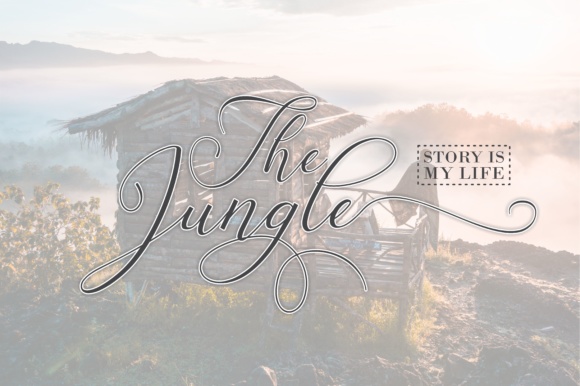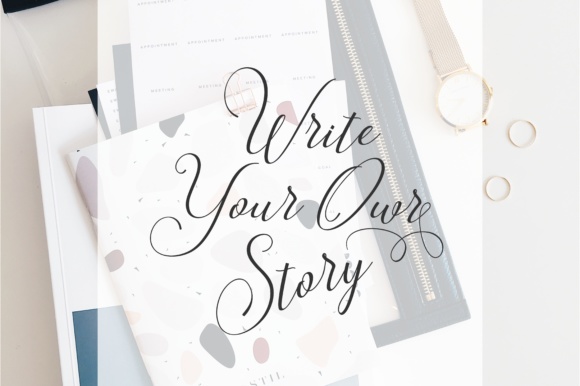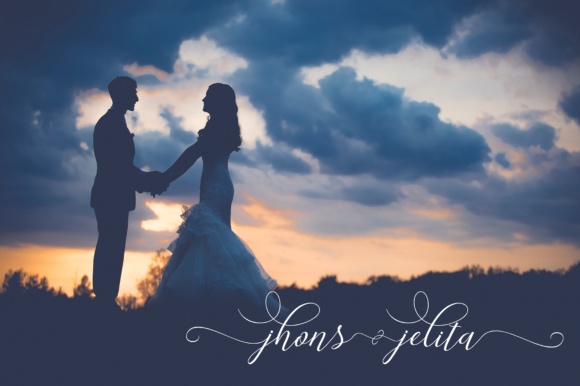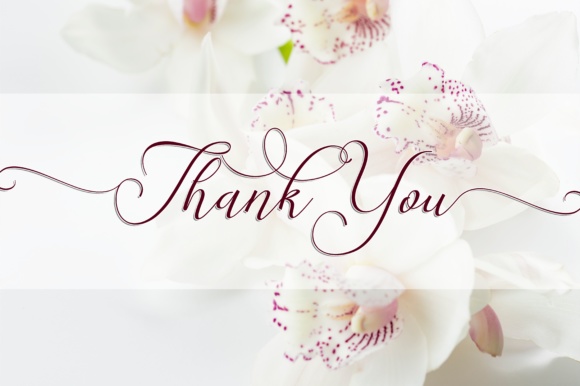
Spoiled Girl Font
Spoiled Girl is a connecting script with a dancing baseline, designed to convey elegance and style. Spoiled Girl is clean, feminine and friendly. All designs will have a wonderful homemade touch with Spoiled Girl, a gorgeous script font.